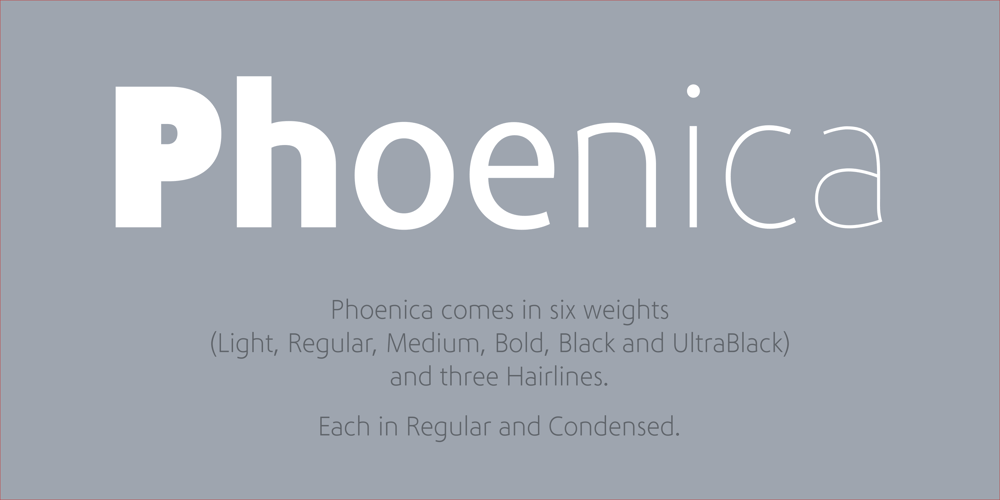
Phoenica Std
Phoenica Std font
Phoenica Std Font Family was designed by Ingo Preuss and published by preussTYPE. Phoenica Std contains 28 styles and family package options. PHOENICA is a contemporary humanistic typeface family suitable for traditional high-resolution print purposes, office application and multi-media use. Of the creation formed the basis an idea which was developed for the first time by Lucian Bernhard approx in 1930 with the Berhard Gotic and was taken up in the last time by different written creators repeatedly: the repeated elimination anyway (in comparison to a Antiqua, e.g. Garamond) already very much diminished form Grotesque (as for example Helvetica) by systematic leaving out of the serifs. The horizontal direction of the writing is thereby stressed remarkably by which so-called »Rail effect« originates. The eyes can grasp the line to be read very well what is ordinarily left to a Serif-stressed font. By this desired effect is suited PHOENICA also for big text amounts. In numerous test runs Stems and tracking was compared to experienced fonts and was adapted. The experienced was taken over without renouncing, nevertheless, the modern and independent character PHOENICA. PHOENICA offers to you as a welcome alternative to the contemporary humanistic Sansserif. It is a very adaptable family for text and Corporate design uses. Several companies have discovered PHOENICA meanwhile as a Corporate font for themselves and use them very successfully. She provides a respectable typeface combined with refinement and elegance. Every PHOENICA family has at least six weights in each case in regular and italic. In addition more than three fine Haarline weights (Hairline 15, 25, 35). These are a total of 27 possibilities. Phoenica as well as Phoenica Condensed are excellently readable fonts, because they were optimised especially for amount sentence. Both basic styles (Regular and Condensed) are tuned on each other and follow the same form principle. The family is neither exclusively geometrical nor is constructed humanistically, the forms were sketched on quick and light Recognition effect of every single letter. The PHOENICA family design and logo is suited for all only conceivable uses like newspapers and magazines, for the book typography and Corporate Design.